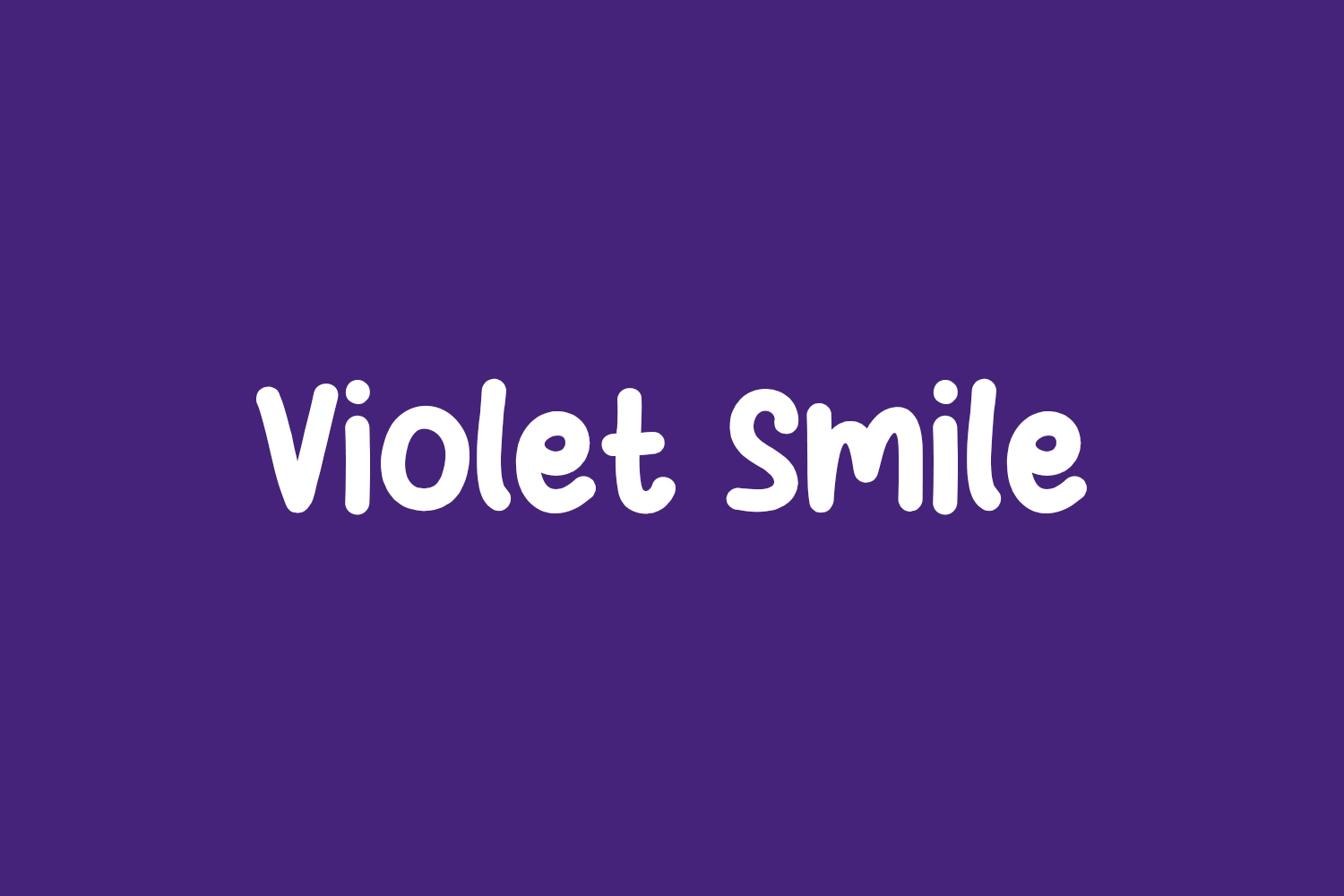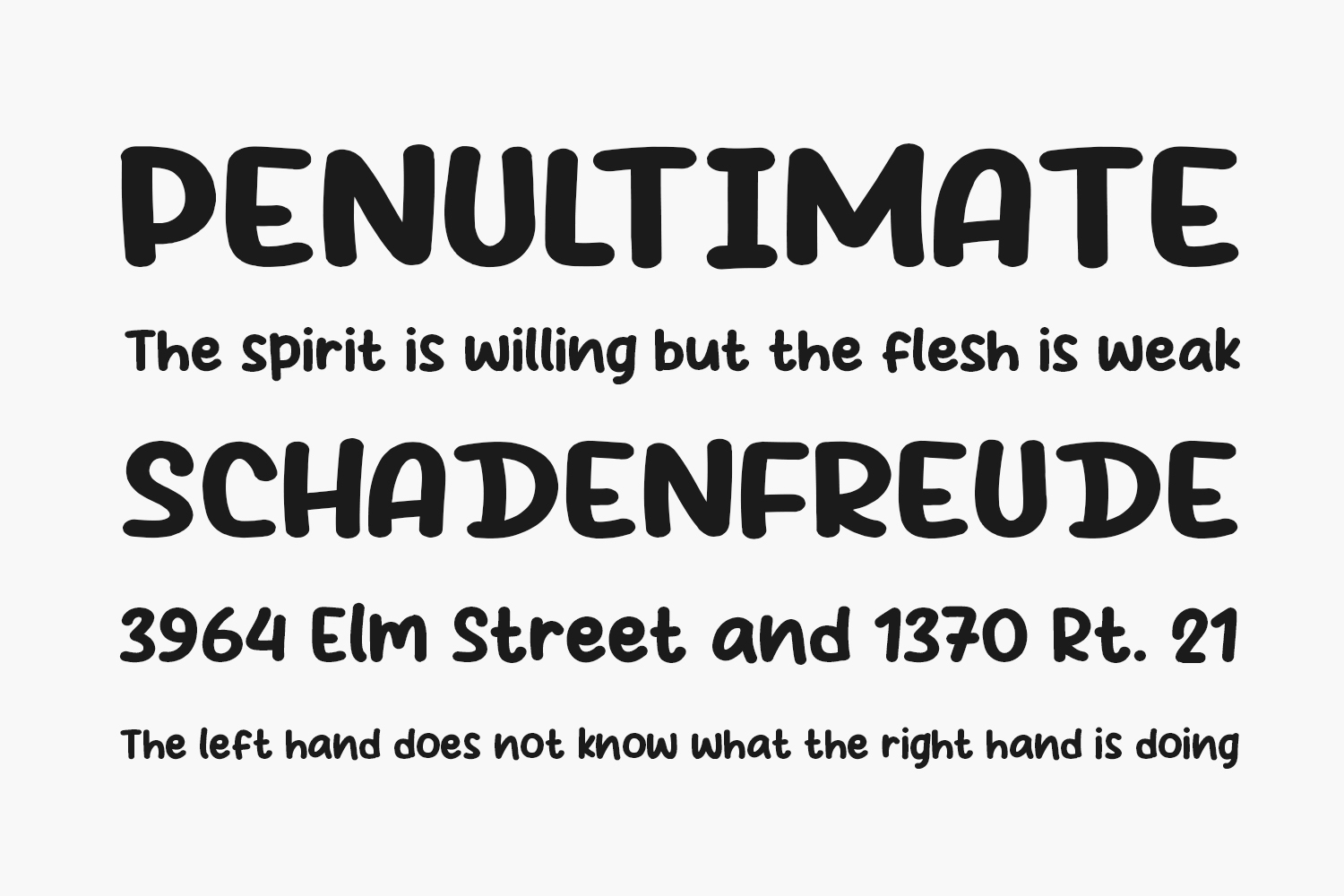
Violet Smile Free Font is a playful and fanciful display font that brings a sense of joy and excitement to any project. Its cartoonish design and colorful letters evoke feelings of childhood wonder and nostalgia. The font’s bold and expressive lines give off a sense of energy and playfulness that is sure to put a smile on anyone’s face. This font is perfect for any project that wants to add a touch of fun and whimsy, making your design stand out with its emotional impact.